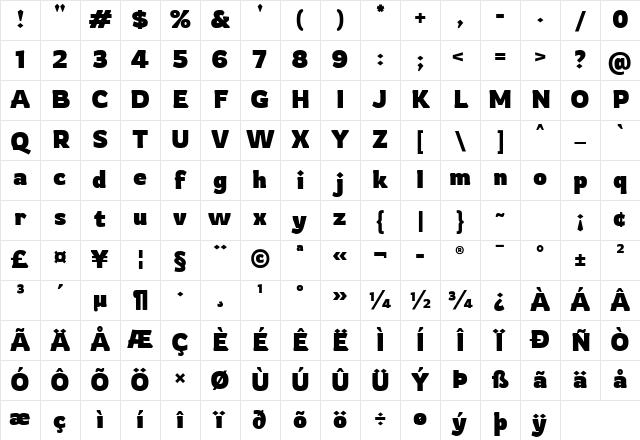
Rowdy Bold
Designer: jaikishan Patel
Design Context for Rowdy
Rowdy is a composed and adaptable typeface that performs quietly and consistently across a wide range of design contexts. Its bold stroke weight gives it real presence on the page.